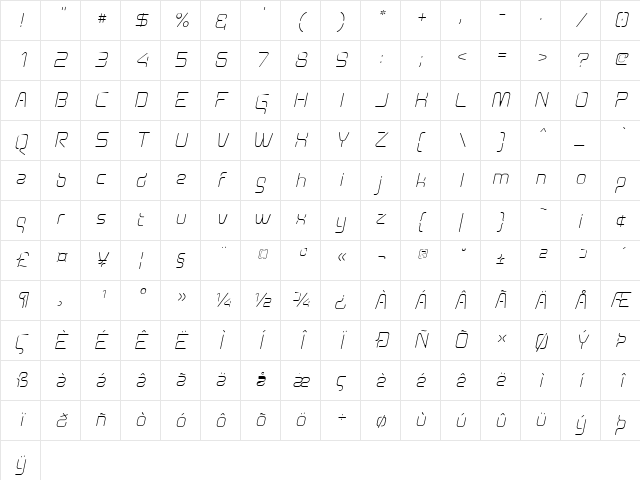
Complete Aunchanted Thin Oblique Regular glyph index. Displaying only characters natively supported by Aunchanted Thin Oblique Regular font.
Aunchanted Thin Oblique is a composed and adaptable typeface that performs quietly and consistently across a wide range of design contexts. The slanted form adds forward momentum and visual energy. Its slender proportions lend an understated elegance to any composition.